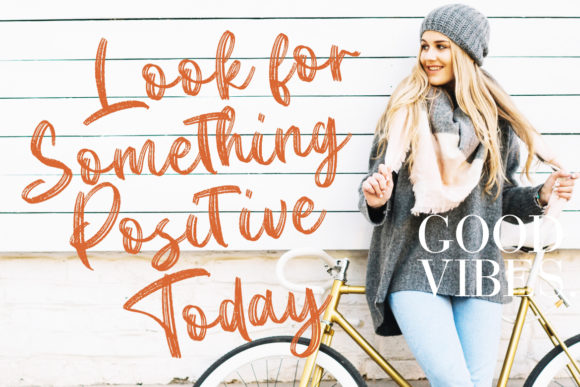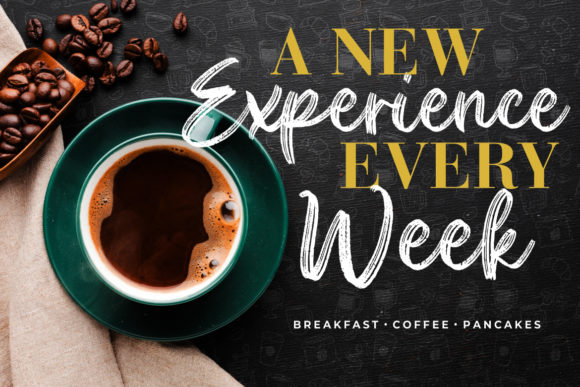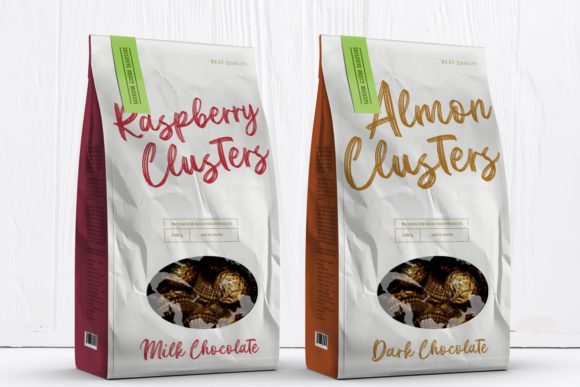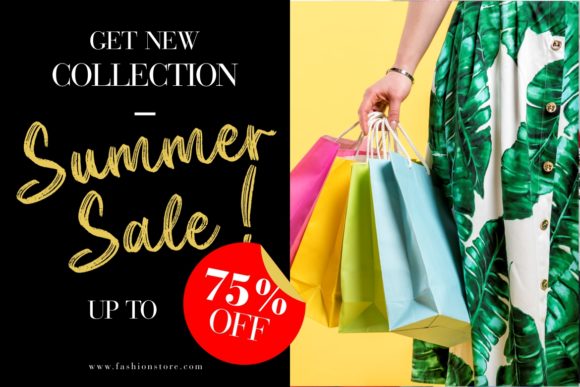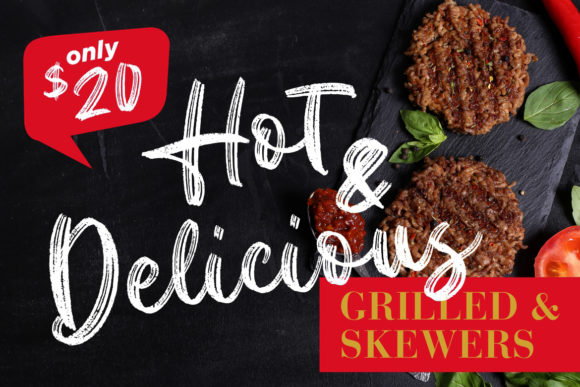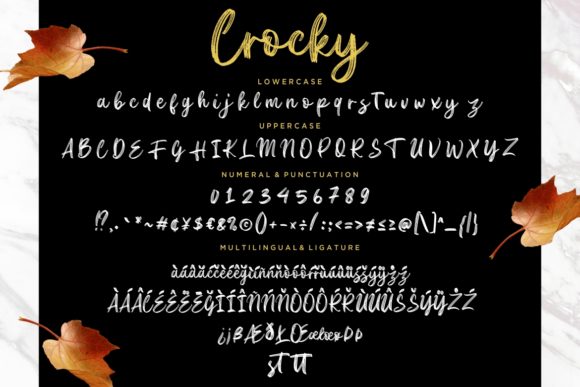
Crocky Font: The Sweet and Flowing Handwritten Font for Creative Projects
Are you looking for a font that can add a touch of elegance and sophistication to your creative projects? Look no further than Crocky Font, a sweet and flowing handwritten font designed with the help of an outstanding brush pen. With its unique yet versatile style, Crocky Font is perfect for designers and crafters who want to create stunning wedding invitations, beautiful stationary art, eye-catching social media posts, and much more.
The Story Behind Crocky Font
Crocky Font was created with the goal of capturing the fluidity and expressiveness of handwritten writing. Using an outstanding brush pen, the designer carefully crafted each letter to create a font that is both sweet and sophisticated. The result is a font that is perfect for a wide range of creative projects, from wedding invitations and stationary art to social media posts and more.
Key Features of Crocky Font
- Handwritten style: Crocky Font has a beautiful, handwritten style that is perfect for adding a personal touch to your creative projects.
- Sweet and flowing: The font has a sweet and flowing quality that makes it perfect for creating elegant and sophisticated designs.
- Unique and versatile: Crocky Font has a unique style that is both versatile and easy to use, making it perfect for a wide range of creative projects.
- Brush pen texture: The font has a beautiful texture that mimics the look of a brush pen, adding a touch of authenticity to your designs.
Uses for Crocky Font
Crocky Font is perfect for a wide range of creative projects, including:
- Wedding invitations: Create stunning wedding invitations that are both elegant and sophisticated.
- Stationary art: Use Crocky Font to create beautiful stationary art, including greeting cards, thank you cards, and more.
- Social media posts: Add a touch of elegance to your social media posts with Crocky Font.
- Signage: Use Crocky Font to create eye-catching signage for events, businesses, and more.
- Packaging: Add a touch of personality to your packaging with Crocky Font.
Tips for Using Crocky Font
Here are a few tips for using Crocky Font in your creative projects:
- Experiment with different sizes: Crocky Font looks great in a variety of sizes, from small and delicate to large and bold.
- Pair with other fonts: Try pairing Crocky Font with other fonts to create a unique and interesting look.
- Use in combination with images: Crocky Font looks great in combination with images, especially those with a vintage or rustic feel.
- Don’t be afraid to get creative: Crocky Font is a versatile font that can be used in a wide range of creative projects, so don’t be afraid to experiment and try new things.
Crocky Font is a sweet and flowing handwritten font that is perfect for designers and crafters who want to add a touch of elegance and sophistication to their creative projects. With its unique yet versatile style, Crocky Font is perfect for a wide range of projects, from wedding invitations and stationary art to social media posts and more. So why not give Crocky Font a try and see what amazing creations you can come up with?
In conclusion, Crocky Font is a must-have font for any designer or crafter looking to add a touch of elegance and sophistication to their creative projects. Its unique and versatile style makes it perfect for a wide range of projects, and its sweet and flowing quality makes it a joy to use. So if you’re looking for a font that can help you take your creative projects to the next level, look no further than Crocky Font.